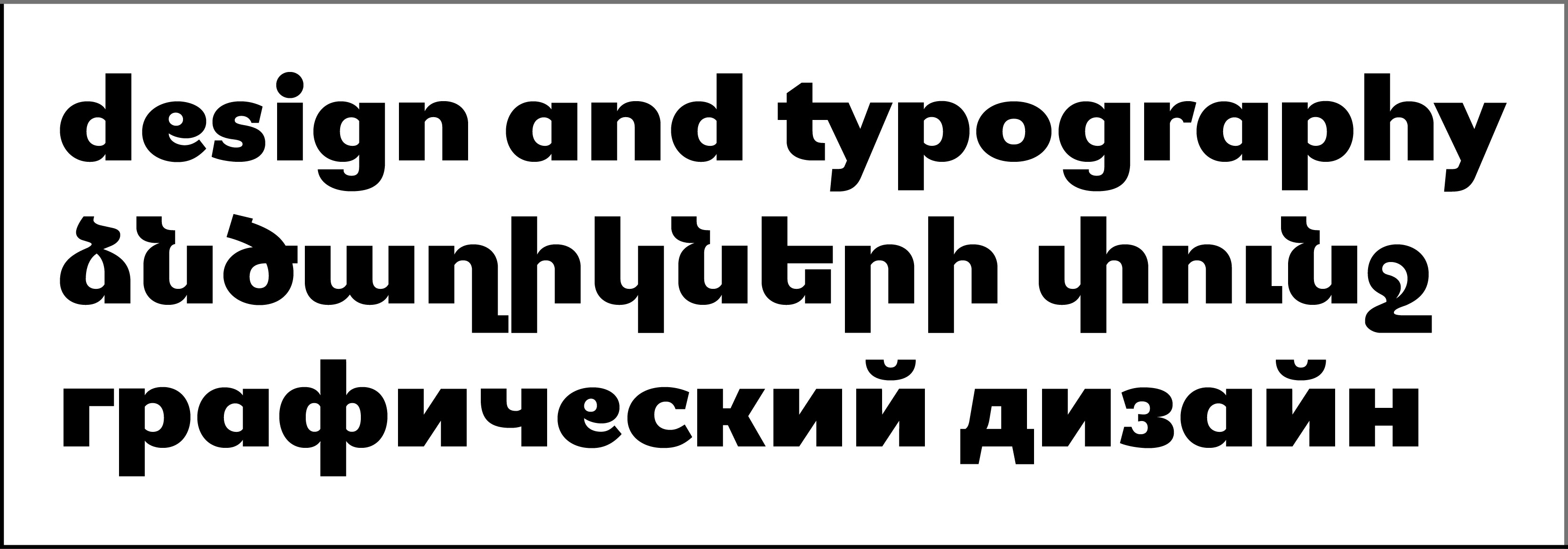
GHEA Tokun
Design date: 2023
Styles: Black
Writing systems: Armenian, Latin Pro, Cyrillic.
The display font GHEA Tokun can be used as title font, also for poster, books, albums, etc.